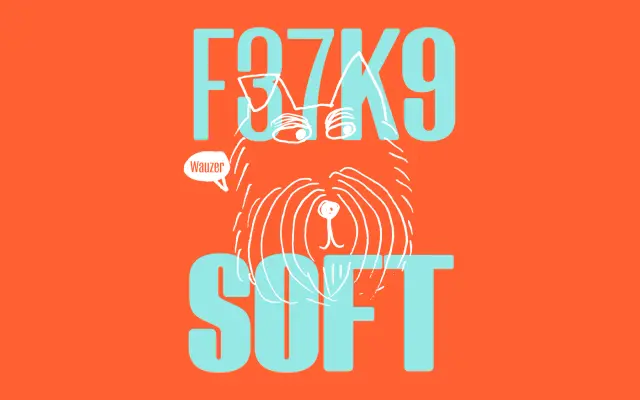
F37 K9 Soft
F37 K9 Soft specimen from F37 Foundry
The soft-terminal cut of F37 K9, eight styles that warm the slab into a friendlier serif for editorial and consumer brand work.
F37 K9 Soft softens the slab terminals of the wider K9 family for a friendlier, more approachable tone, while keeping the same skeleton as K9 Slab and K9 Wedge. Eight styles span Light, Regular, Medium and Bold with matching italics, and the family is built so designers can mix the three cuts within a single identity. Reach for it on consumer brands, food and lifestyle, or any editorial system where you want serif personality without sharp edges.
Soft-terminal cut within the F37 K9 family. F37 frame K9 around the Chusky crossbreed metaphor; the Soft variant rounds the slab terminations for a warmer, friendlier feel while keeping the same eight-style structure as Slab and Wedge.